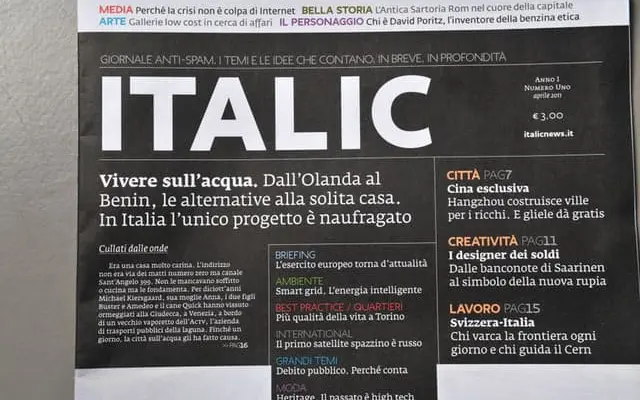
Irma Display specimen from Typotheque
A large-scale type system from Typotheque designed around wayfinding and signage, spanning display and text optical sizes with slab, rounded and narrow variants.
The Irma system pairs display and text optical sizes across nine weights from Hairline to Black, with four subfamilies covering standard, slab, rounded and narrow cuts. The text sizes are italic-only, reflecting conventions of wayfinding and directional signage where upright romans are typically set in display sizes. Its real-world deployment in projects such as the City of Metz wayfinding scheme demonstrates the range needed to sustain a complex environmental typography brief.
Irma Display is a large-family sans with slab and rounded variants, structured around humanist proportions suited to wayfinding and signage applications. The presence of slab, round and narrow subfamilies alongside display and text optical sizes points to a humanist sans architecture.